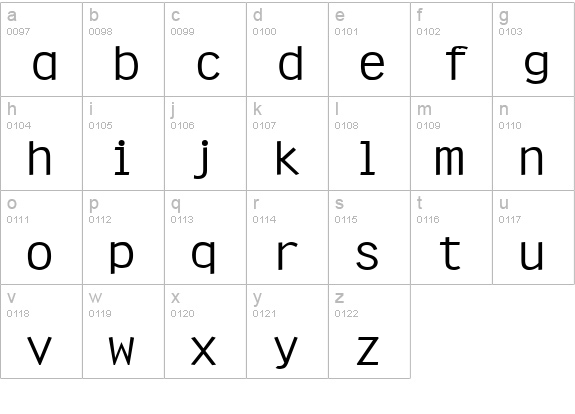
Clean-Extended Normal is the standard, neutral, extended-width variant in the Clean typeface family \xE2\x80\x94 well suited to general body text, paragraphs, and standard typographic work.
The Clean-Extended Normal font is a sleek and modern typeface that exudes simplicity and elegance. Its clean lines and extended letterforms make it perfect for a wide range of design projects, from branding and logos to editorial layouts and websites. This versatile font is designed to be easily readable and highly legible, making it suitable for both print and digital applications. What's more, the Clean-Extended Normal font is available for free download at FontsMarket.com. This means that you can add this stylish font to your collection without having to spend a penny. Don't miss out on the opportunity to enhance your design projects with this beautiful typeface that combines clean aesthetics with modern appeal. Download the Clean-Extended Normal font today and give your designs a fresh and contemporary look.